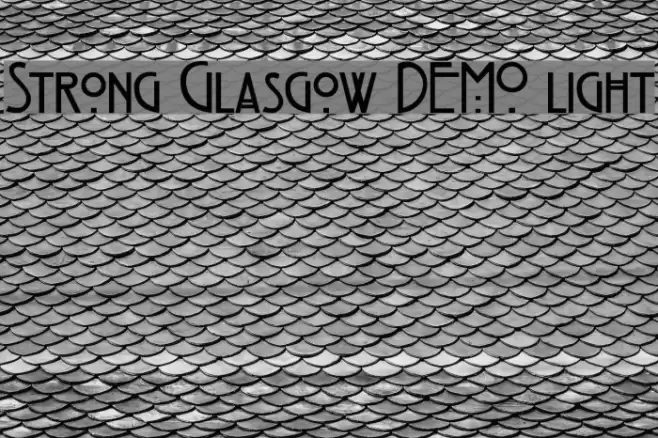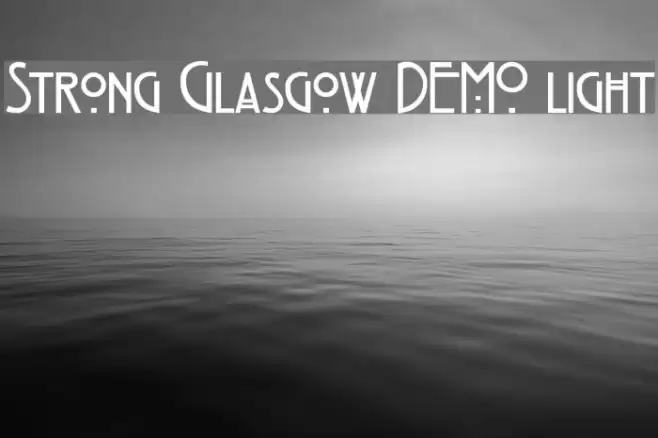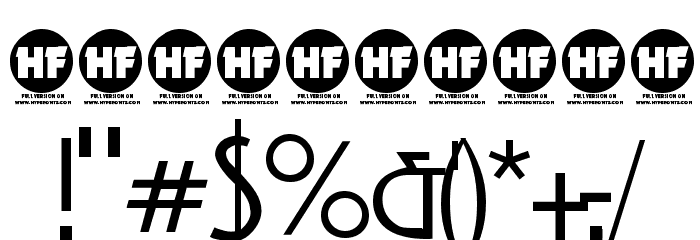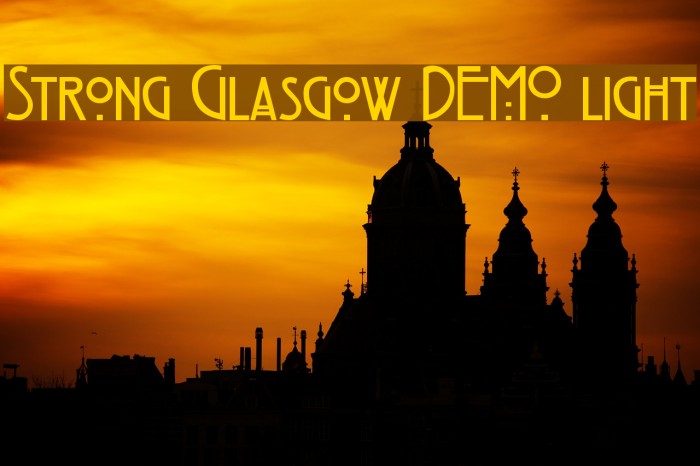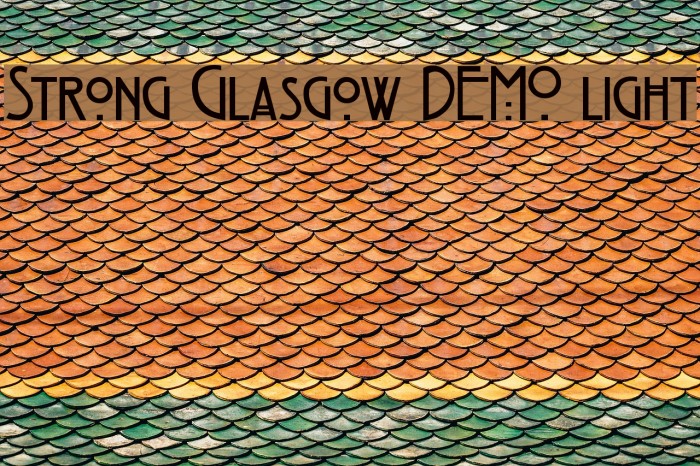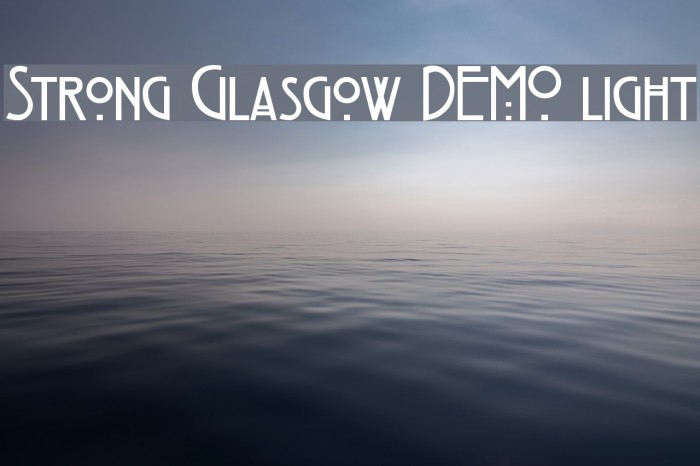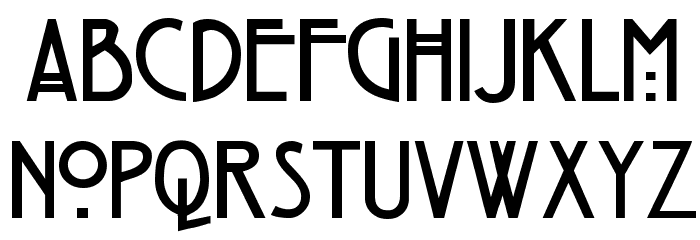
Strong Glasgow DEMO light Font
Strong Glasgow DEMO light Description
This font features a modern and geometric design with clean lines and a distinct, angular appearance. The uppercase letters have a uniform height, while the lowercase letters maintain a consistent style that complements the uppercase. The numerals and special characters are designed to match the overall aesthetic, with a focus on clarity and simplicity. The font's structure is both bold and elegant, making it suitable for a variety of design applications. Its unique style is characterized by sharp angles and a slightly condensed form, giving it a contemporary and stylish look.
A modern, geometric font with clean lines and a distinct angular design from Art Nouveau fonts.
- Proposed Projects: Ideal for branding, posters, headlines, and modern web design projects.
- Use Case: Headlines, Logos, Branding